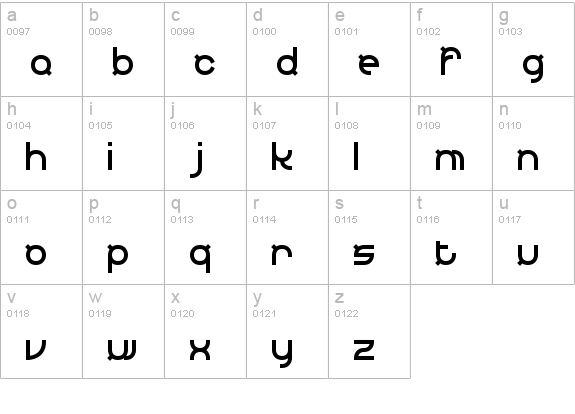
Yearend BRK Font Details
Yearend BRK font is a modern and stylish typeface that brings a touch of elegance to any design project. With its unique combination of sleek lines and bold strokes, this font is perfect for creating eye-catching headlines, logos, and more. Whether you're working on a branding project or designing a social media post, Yearend BRK font is sure to make your text stand out. The best part? Yearend BRK font is completely free to download at FontsMarket.com. You can easily add this versatile font to your collection without any cost, making it a valuable resource for designers, creatives, and anyone looking to elevate their typography game. Don't miss out on the opportunity to enhance your designs with Yearend BRK font - download it today and start experimenting with its endless creative possibilities!